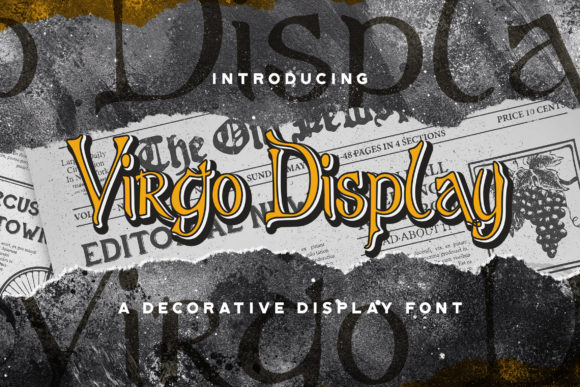
Brace yourself for the Virgo Font, a display font family that will redefine your digital creations. Its enchanting charm and playful nature will cast a spell on your audience. Each letter dances onto the screen, leaving behind a trail of imagination and delight. With its whimsical design, Virgo Font transforms ordinary words into captivating masterpieces.
Unleash your creativity and watch as Virgo Font breathes life into your digital endeavors. Its versatility shines across a myriad of projects, from eye-catching logos that demand attention to stunning social media posts that captivate your followers. Let Virgo Font take center stage in your presentations, leaving your audience mesmerized by its undeniable allure.
Dive into a world of captivating designs, where Virgo Font's enchanting curves and dynamic strokes ignite your imagination. Craft invitations that feel like magical scrolls, design posters that transport viewers to fantastical realms, and create websites that captivate with their playfulness. The possibilities are as boundless as your creativity.
With Virgo Font as your creative ally, you'll embark on a journey of limitless expression. Its unique style will set your projects apart, leaving an indelible mark on the hearts of your audience. Embrace the magic of Virgo Font and watch as your digital creations transform into enchanting experiences.